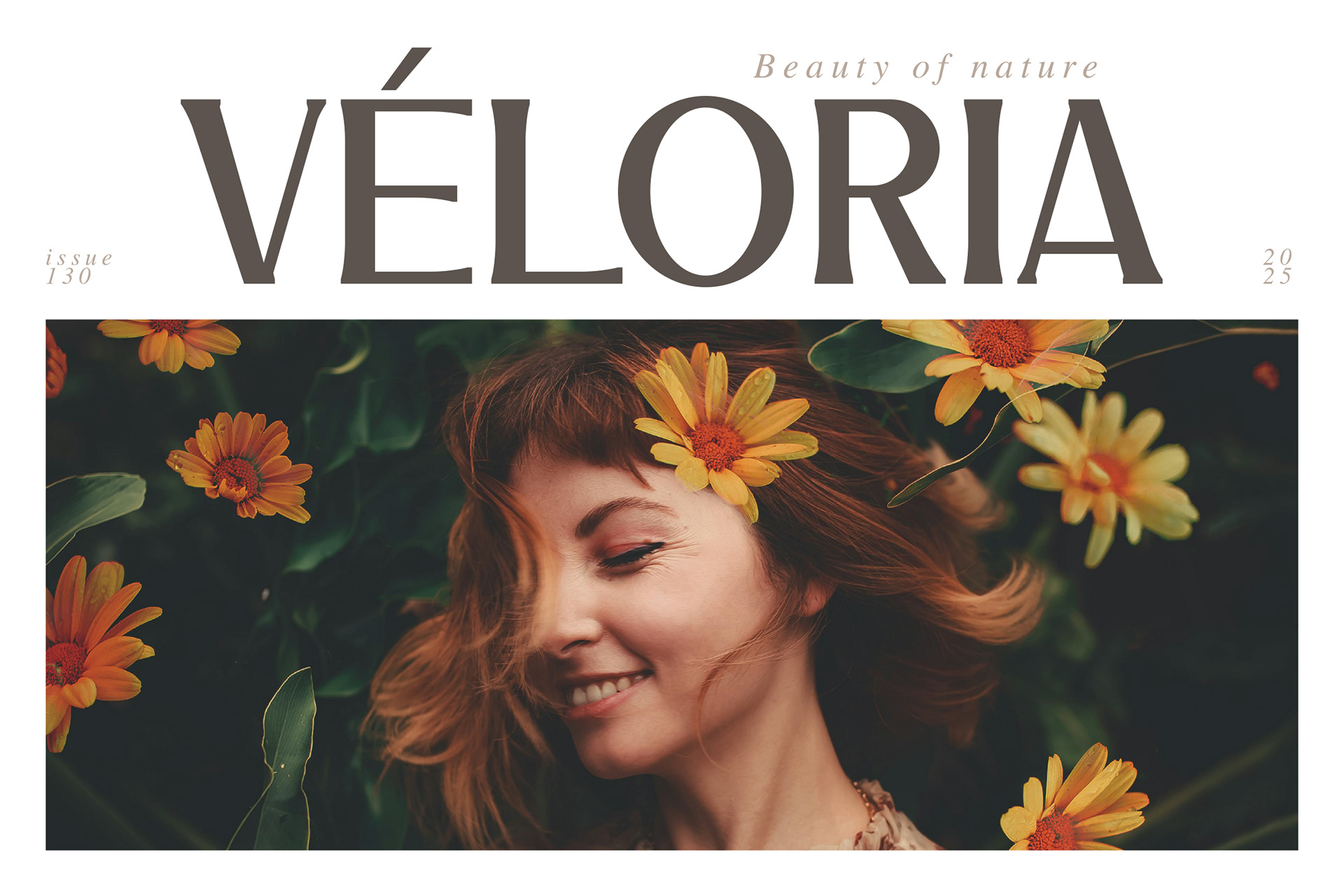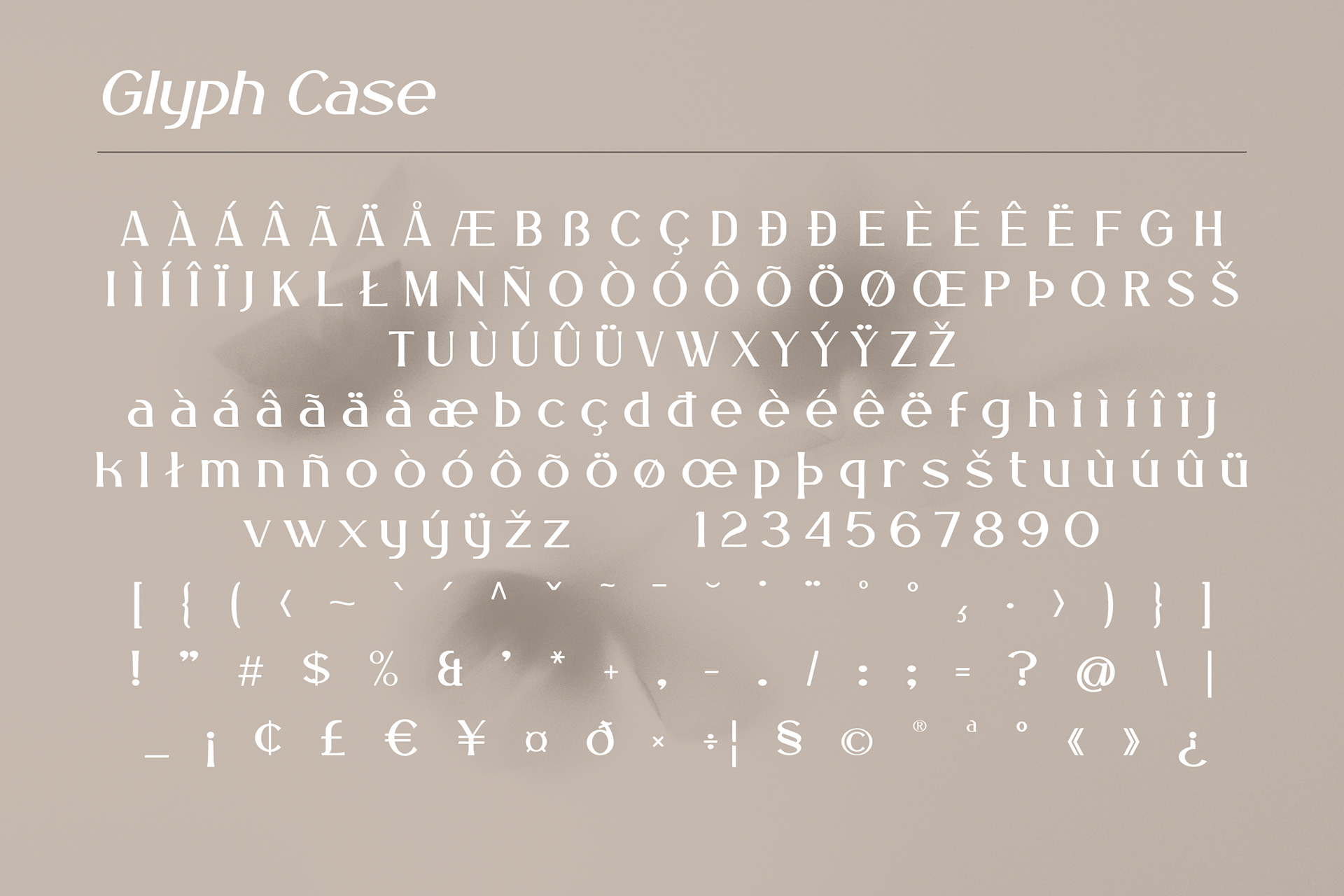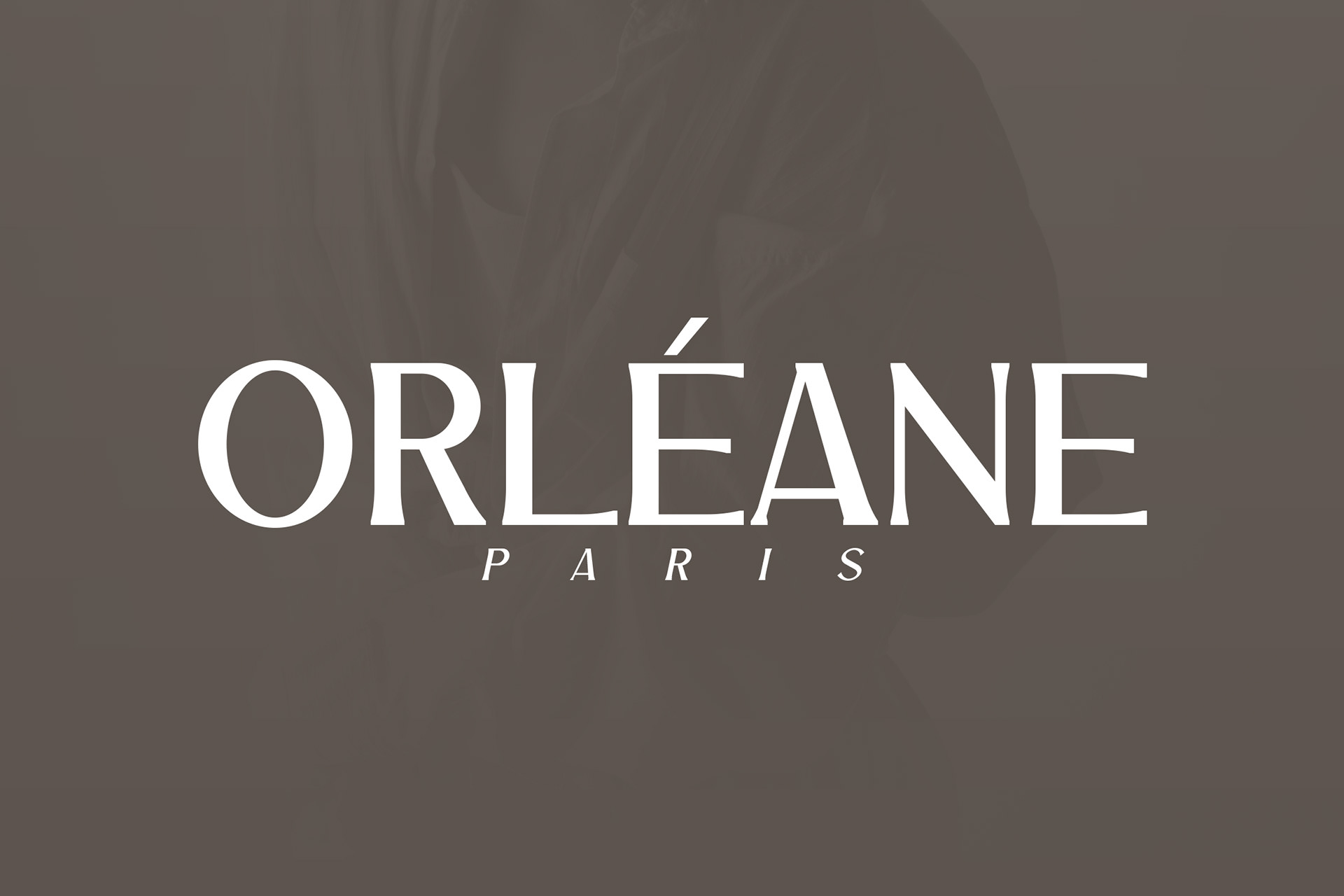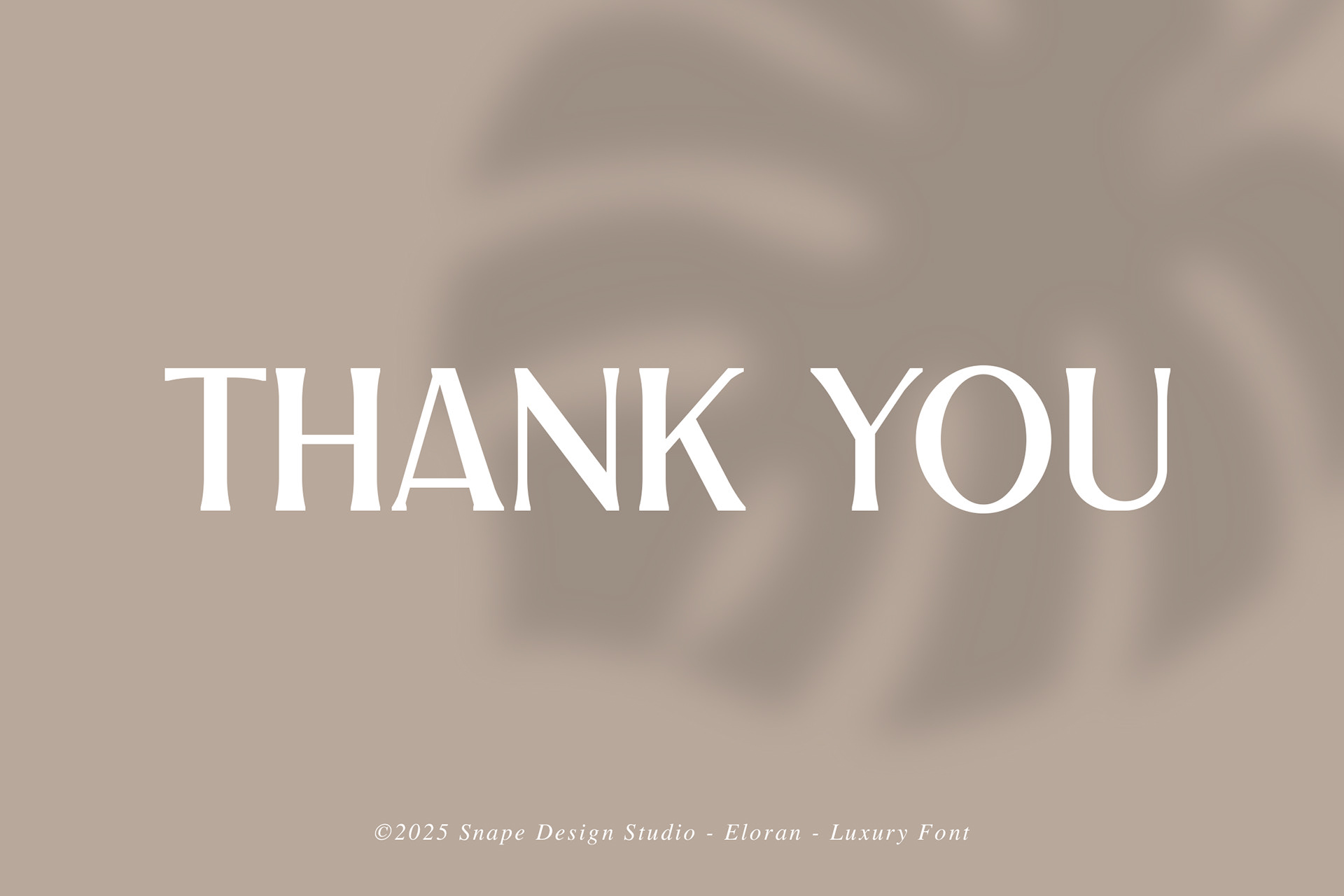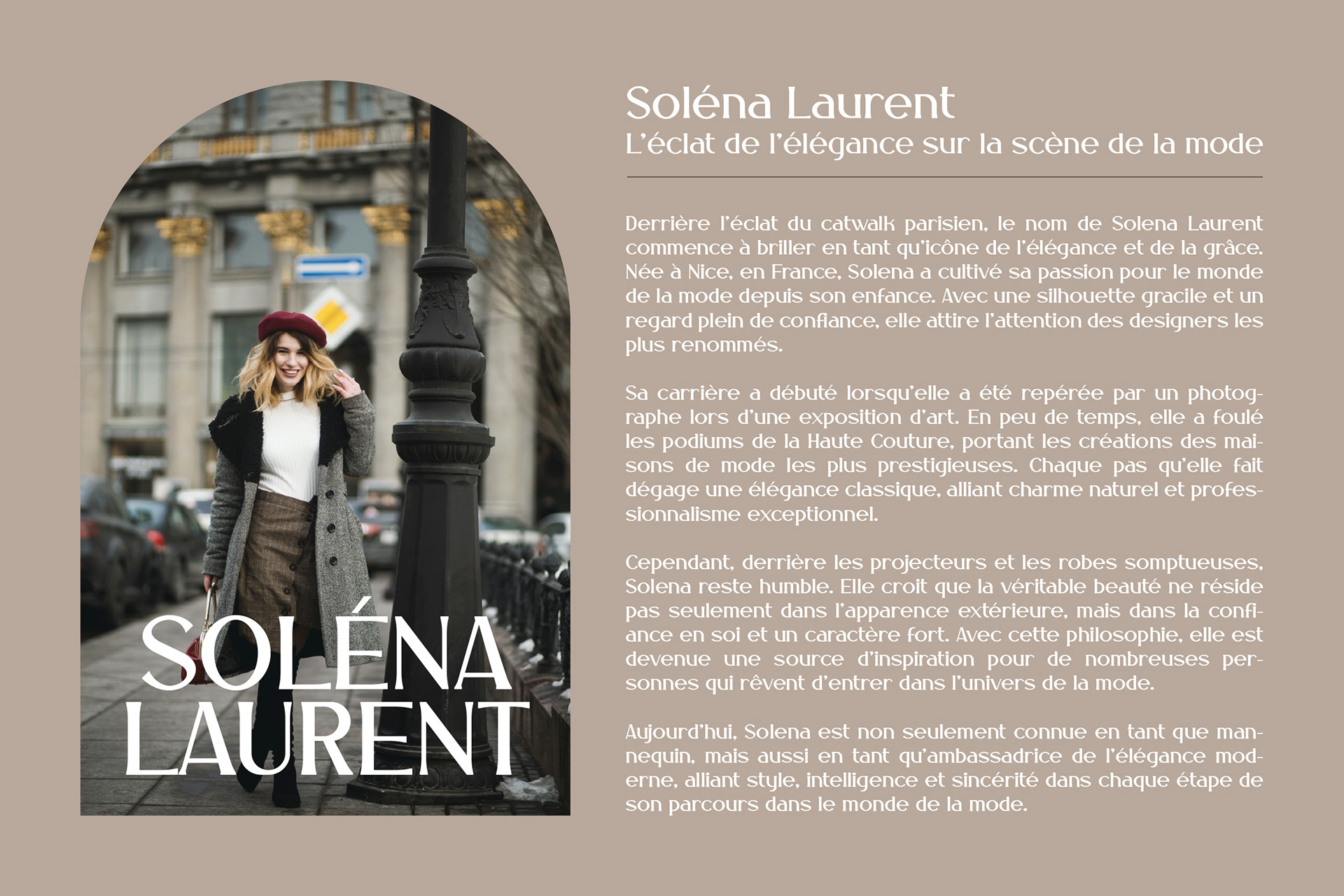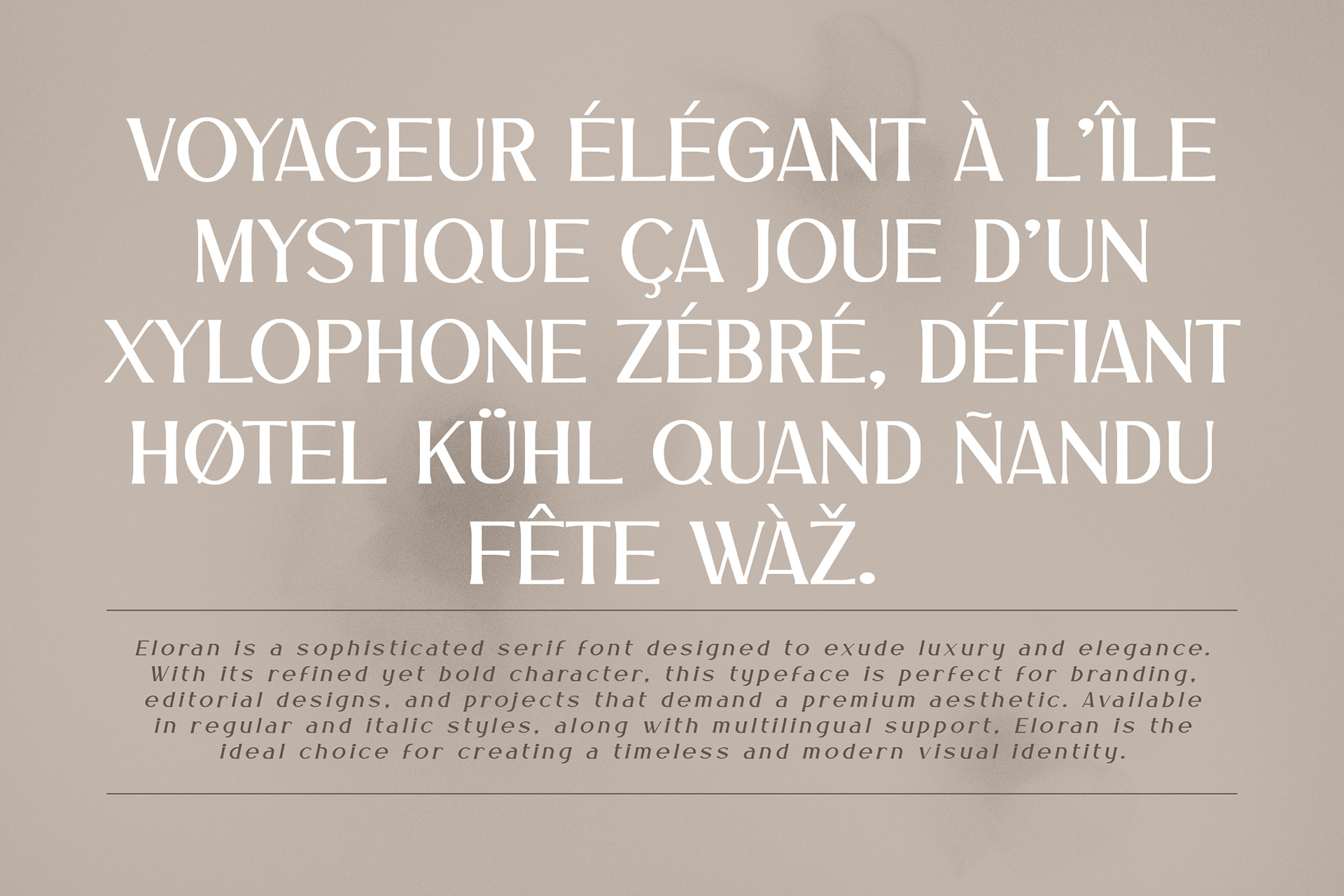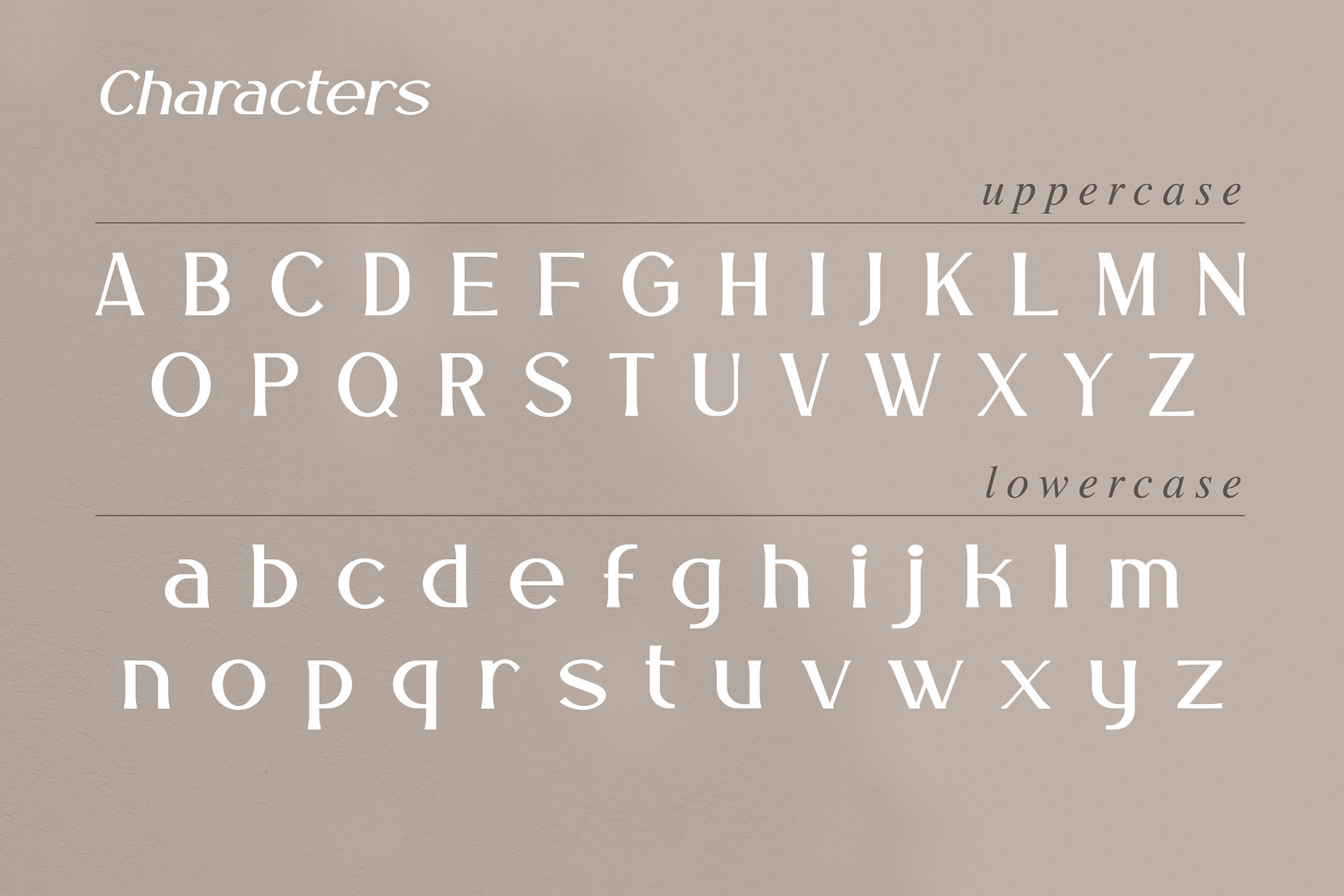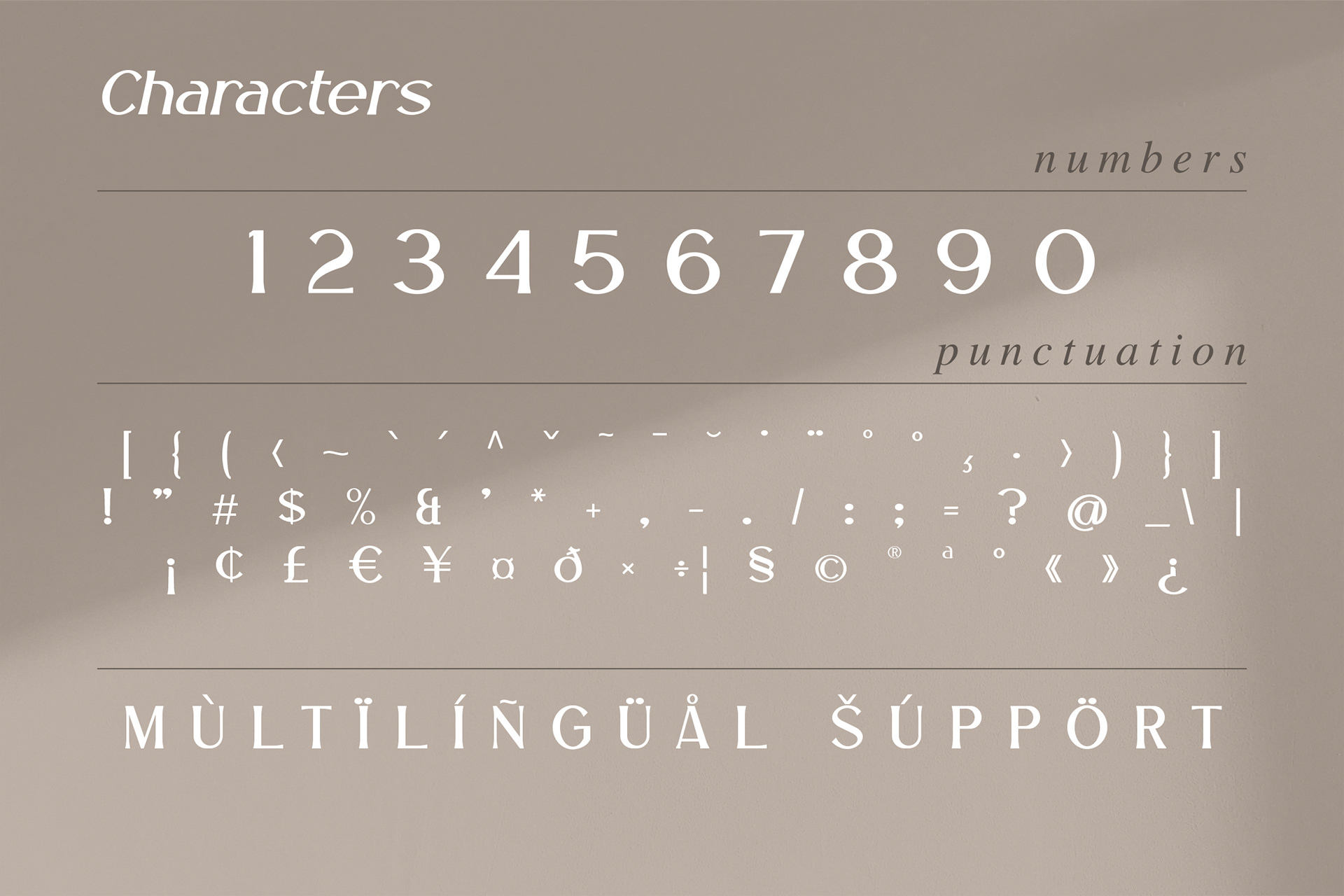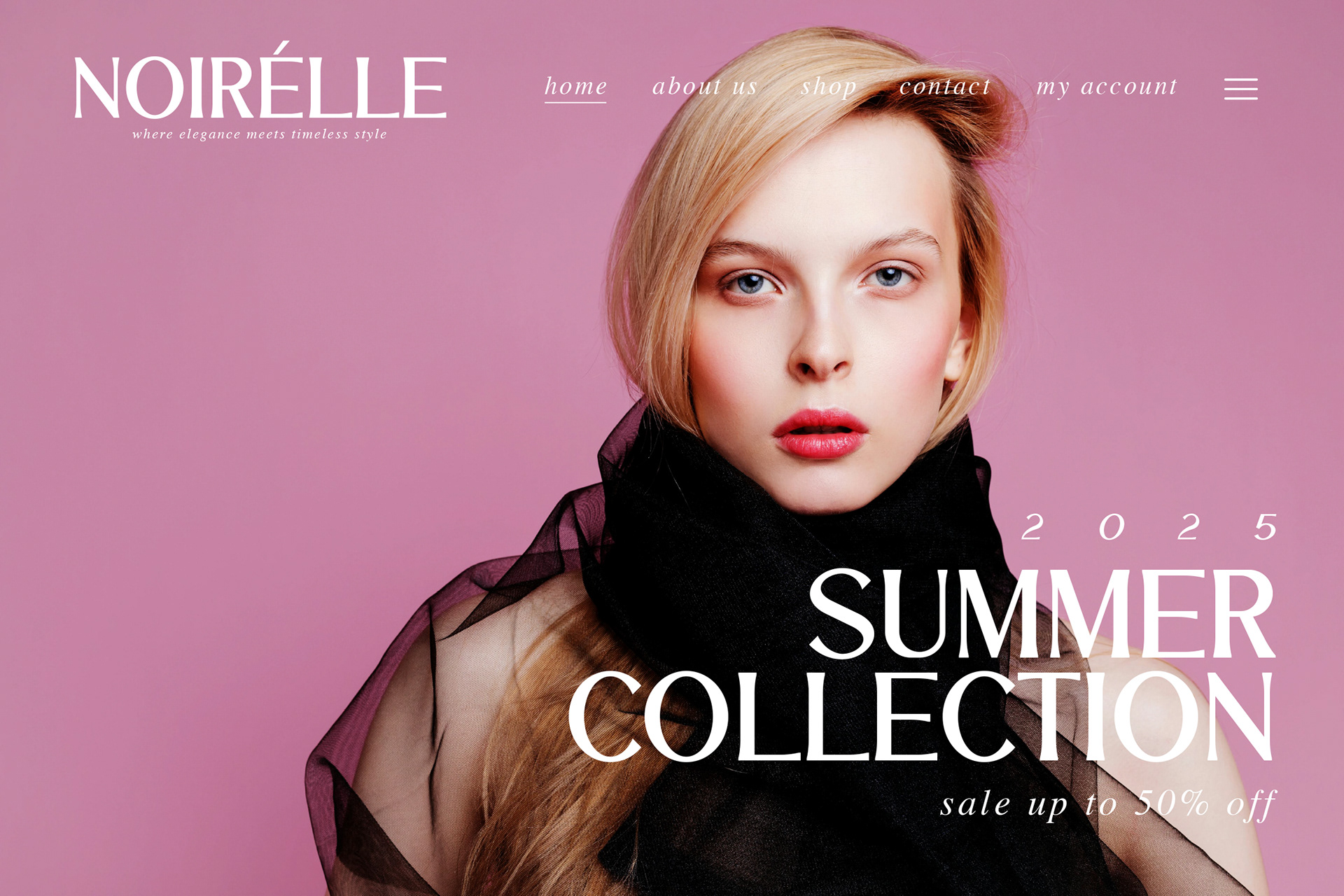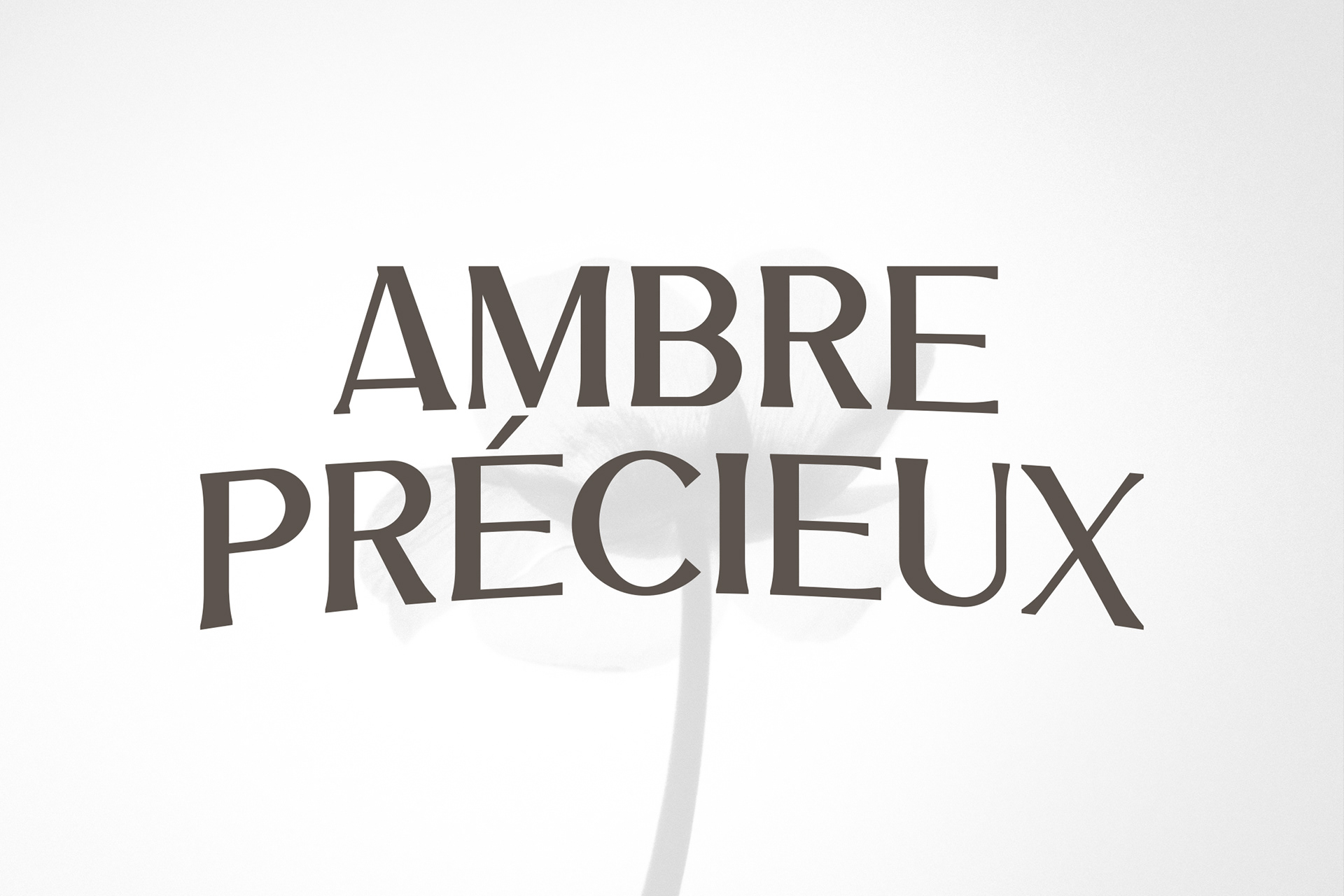
Eloran is a sophisticated serif font that embodies elegance, refinement, and timeless luxury. Designed with sharp, graceful letterforms and balanced proportions, Eloran is perfect for high-end branding, editorial layouts, fashion campaigns, and premium product packaging.